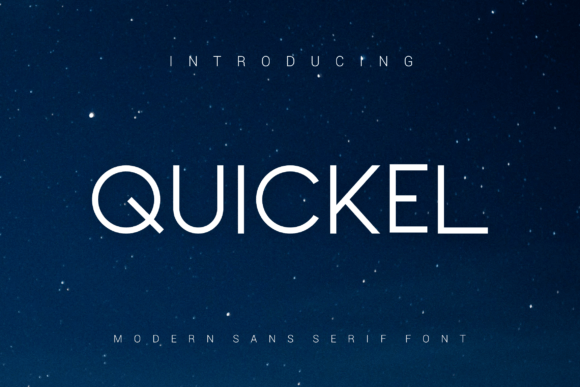
The world's most ravishing sans serif font is at your fingertips!
Quickel font, crafted with the utmost care and ingenuity, is the epitome of sophistication and style. Its clean and minimalist vibe is tailor-made to add a touch of allure to your creations.
Picture this: your book cover, adorned with Quickel's grace, exuding an aura of timeless elegance that draws readers in like moths to a flame. Your social media posts, infused with Quickel's charm, captivate audiences and leave them yearning for more.
Let Quickel paint your designs with panache!